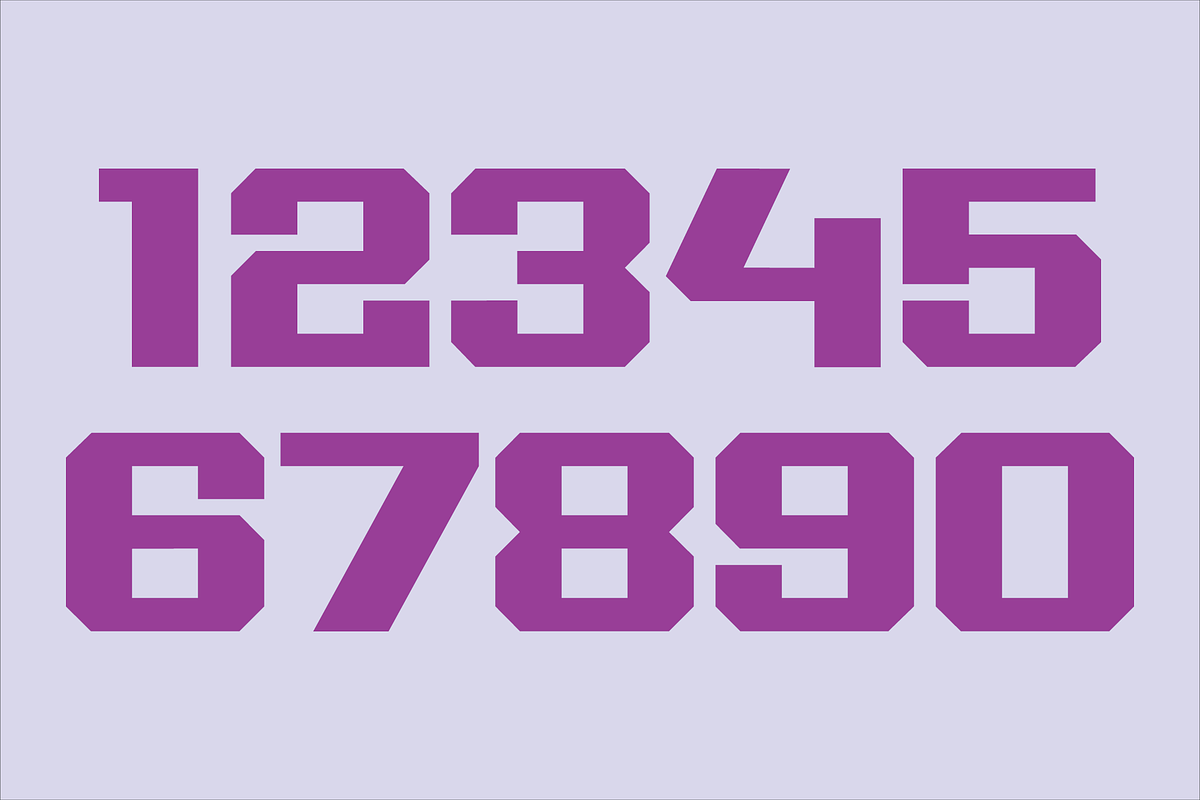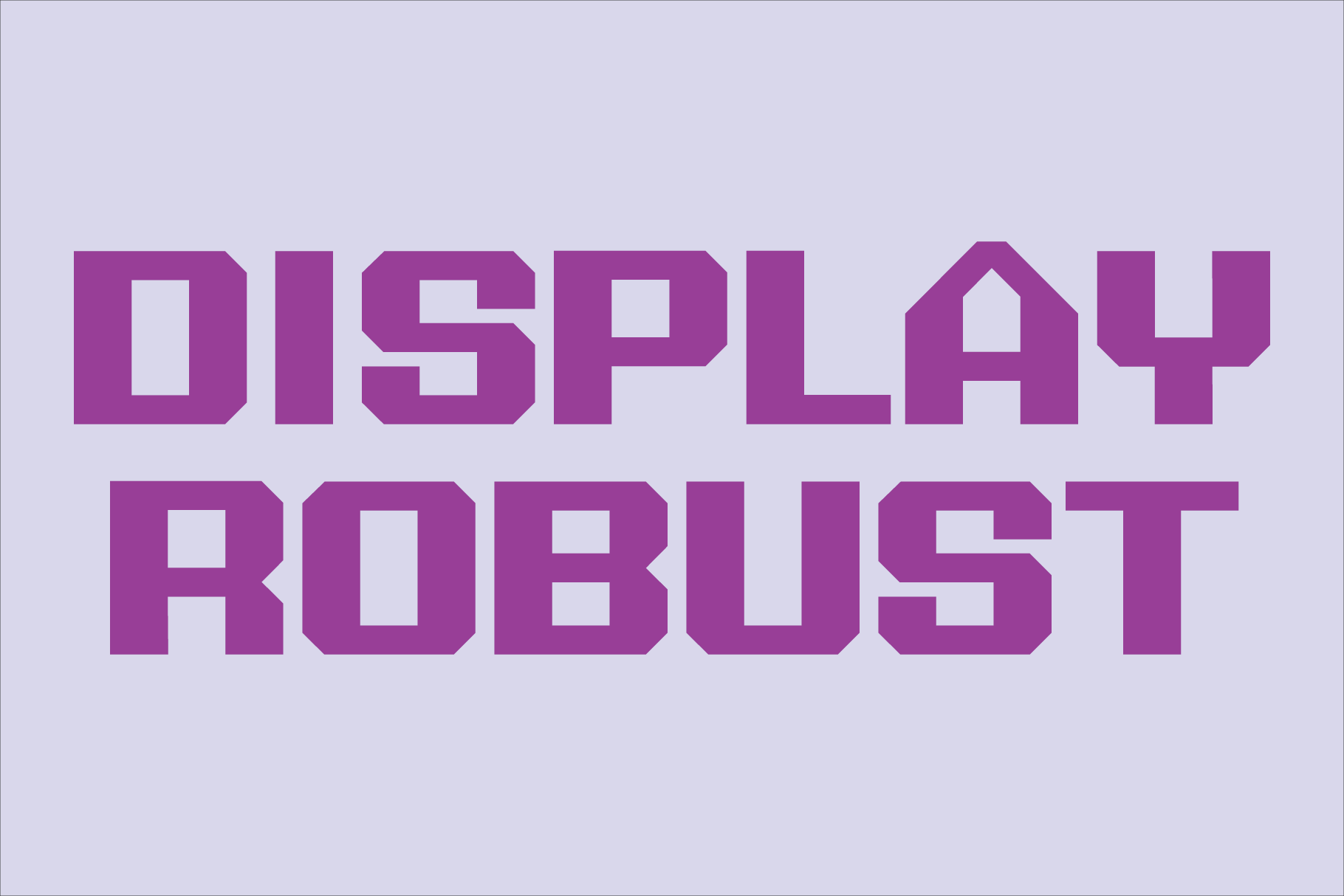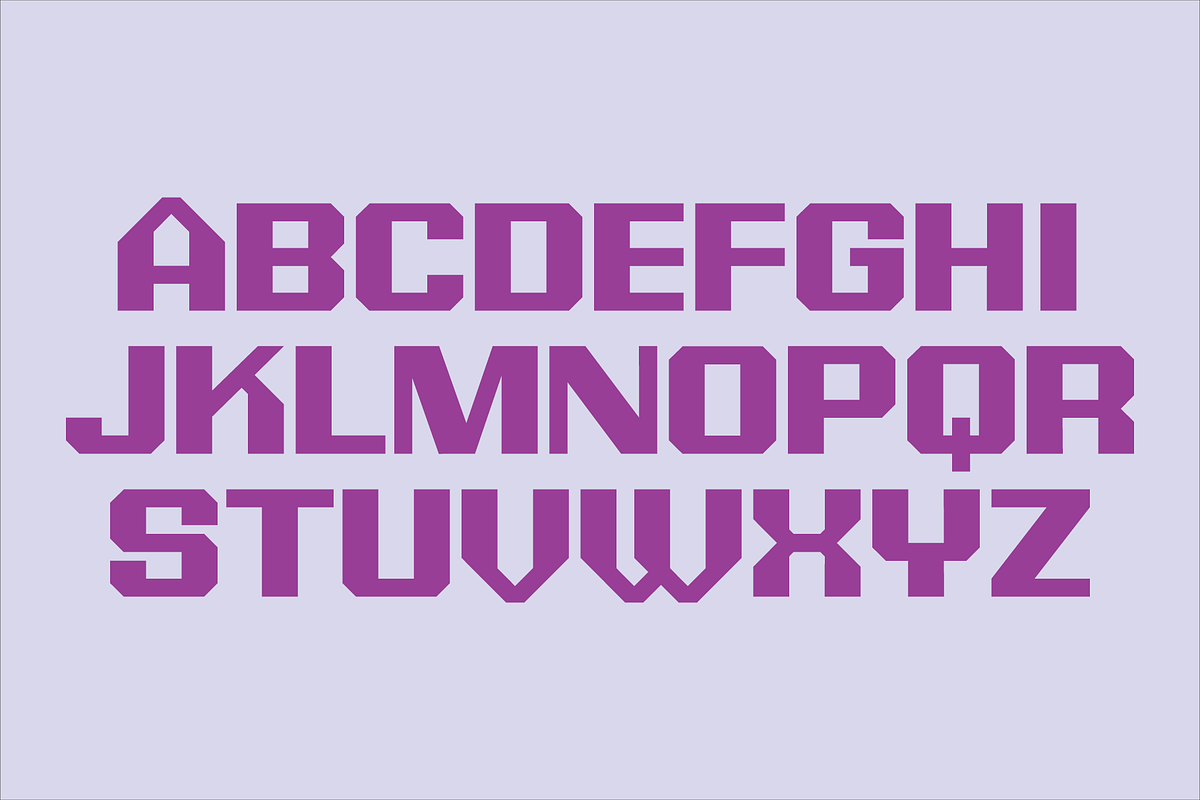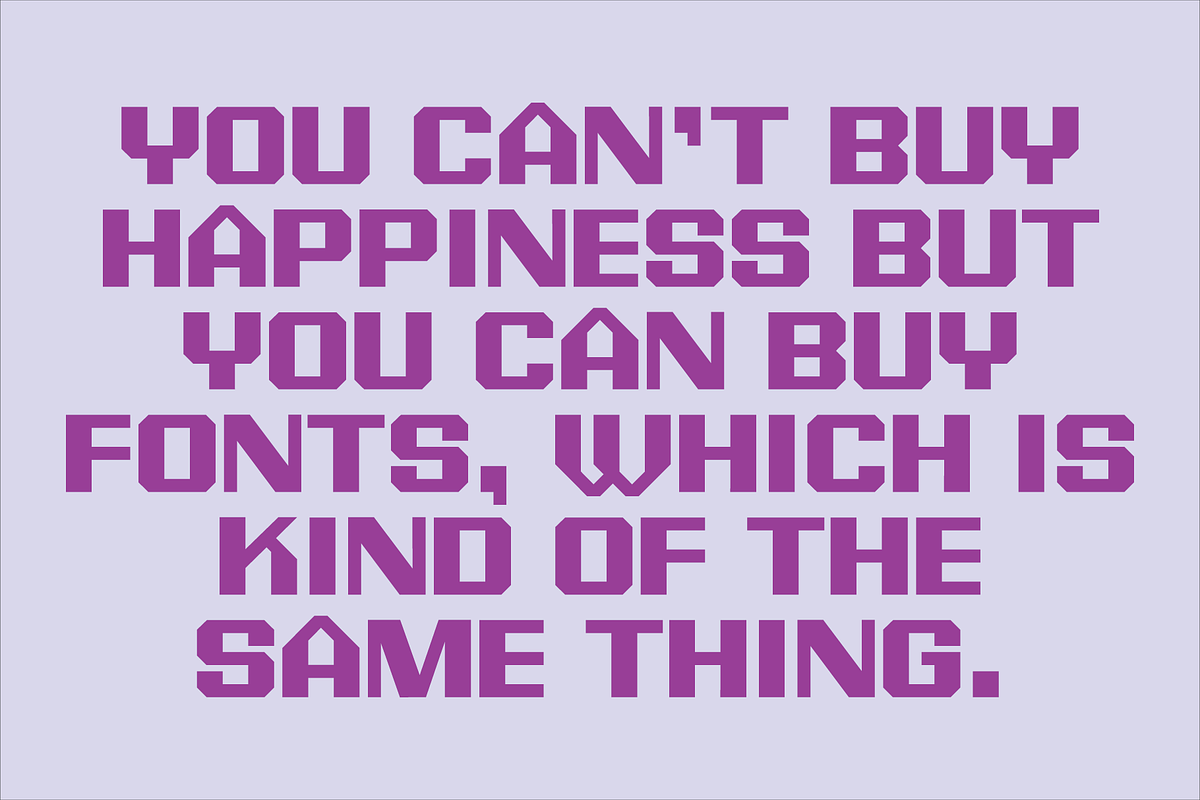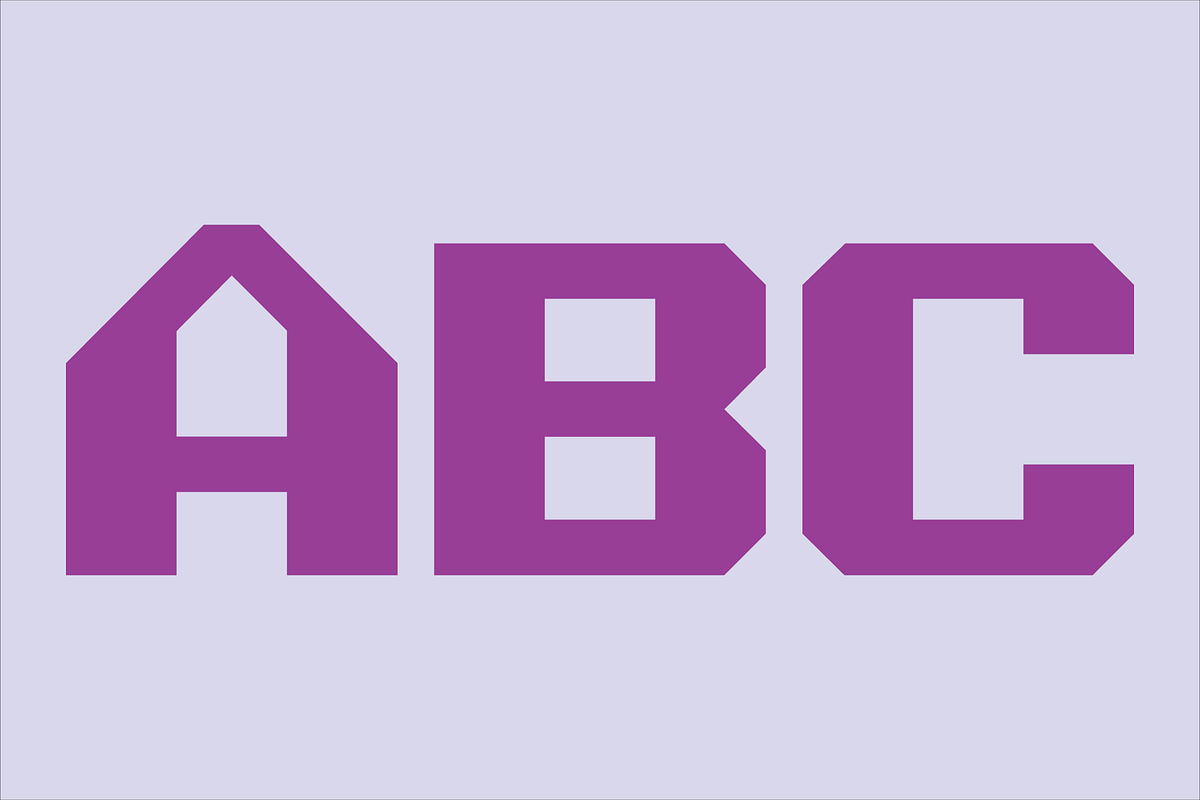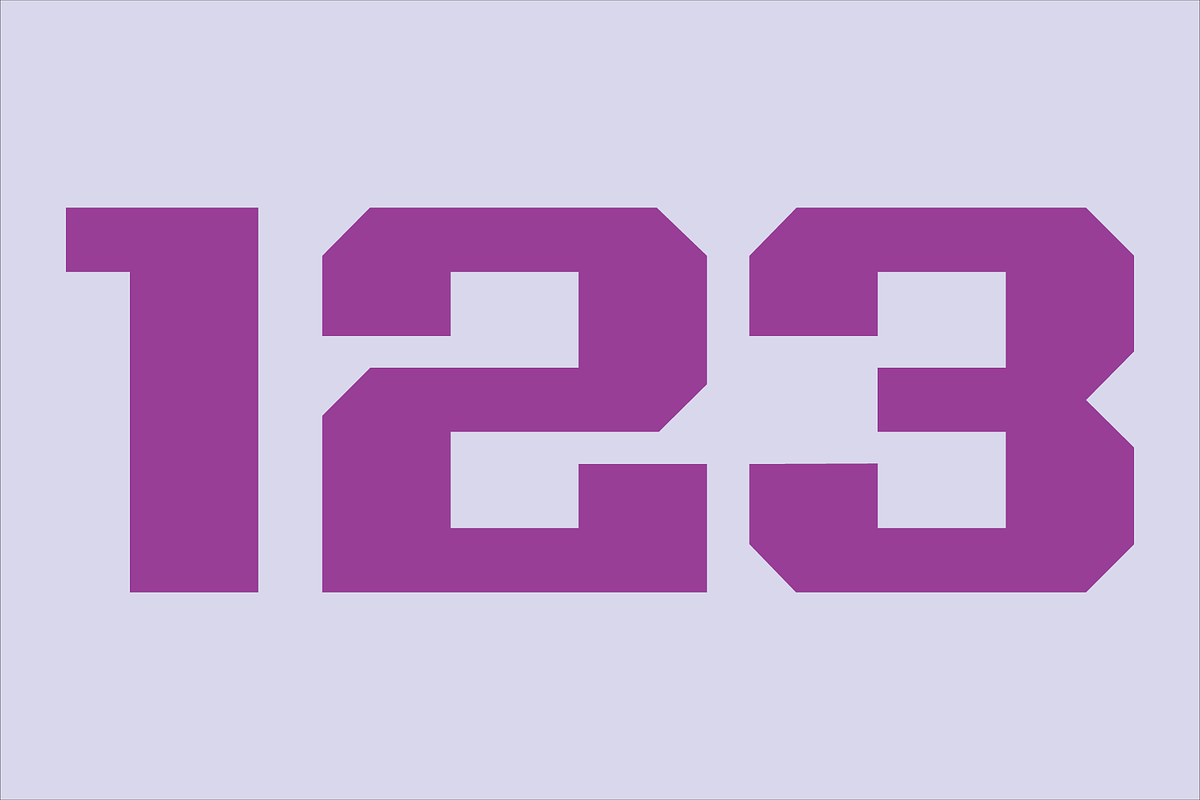
Display Robust Font
Display Robust is a display font not intended for text use. It was designed specifically for display, headline, logotype, branding, and similar applications. It has an uppercase alphabet, numbers, dollar, pound and euro signs, and basic punctuation.